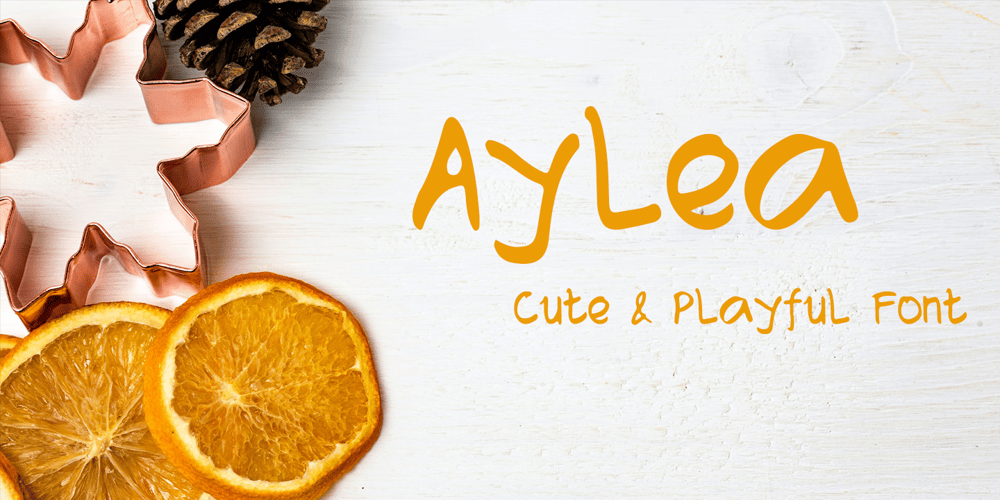
Aylea Font Family was designed by Afif Hidayat Alhabsi and published by Lafitte 58. Aylea contains 1 styles and family package options. Aylea a modern and relaxed display font. It embodies playfulness and authenticity and is the perfect choice for any children activity, school project, Christmas, New Year, Birthday and many more. Add this playful font to your designs and notice how it makes them come alive!